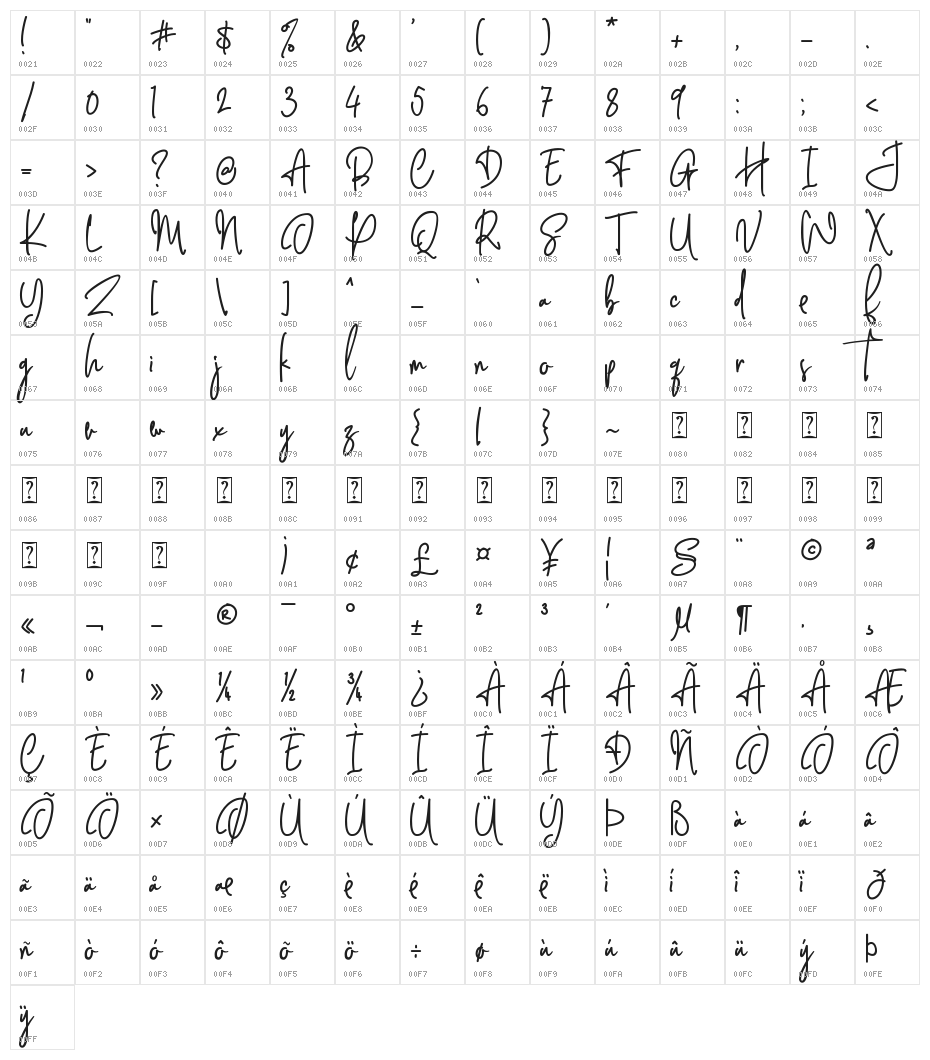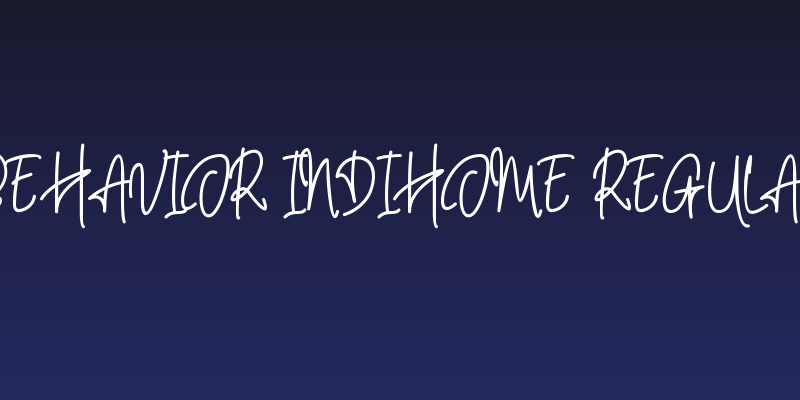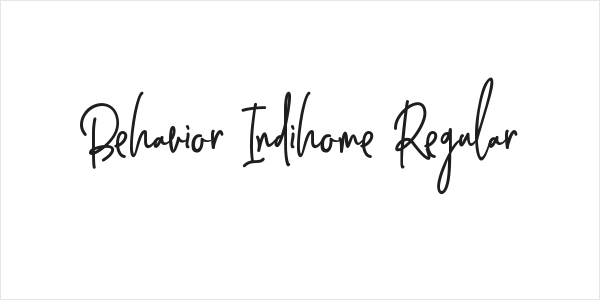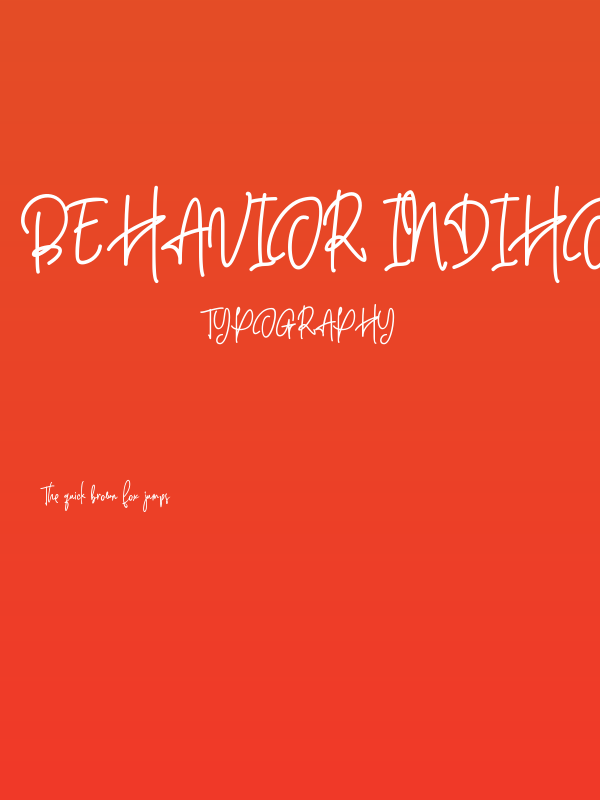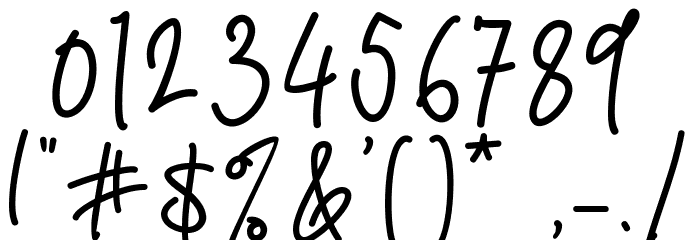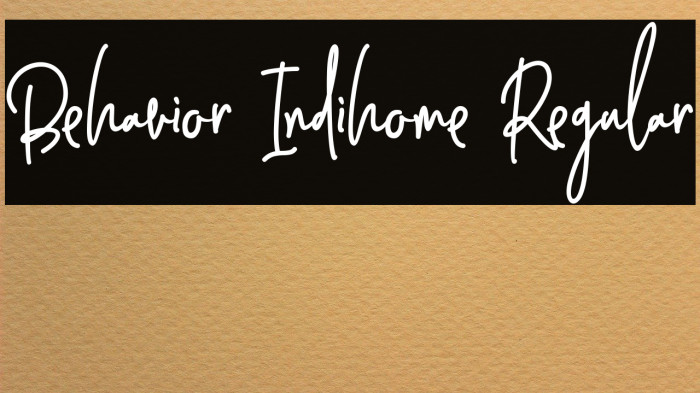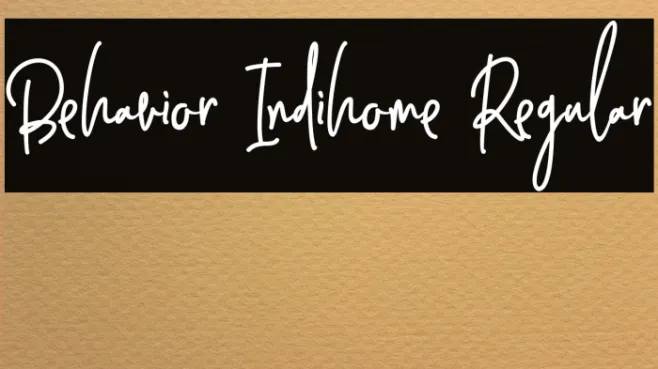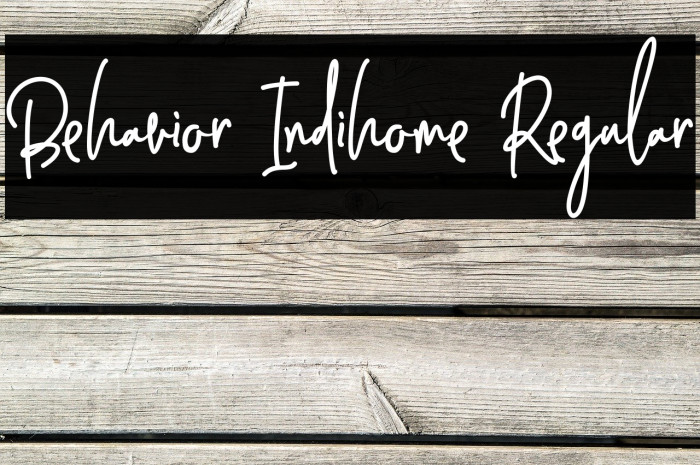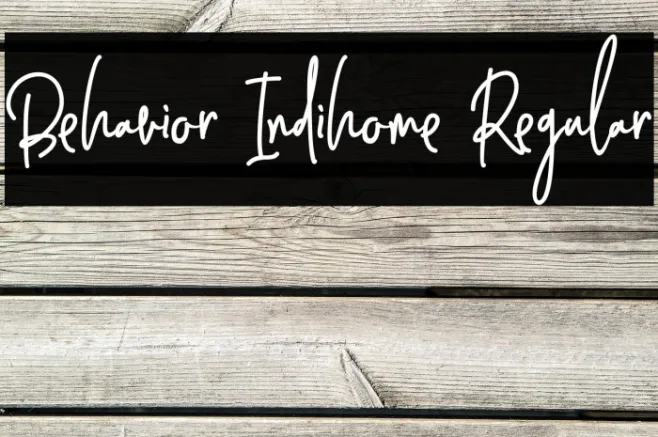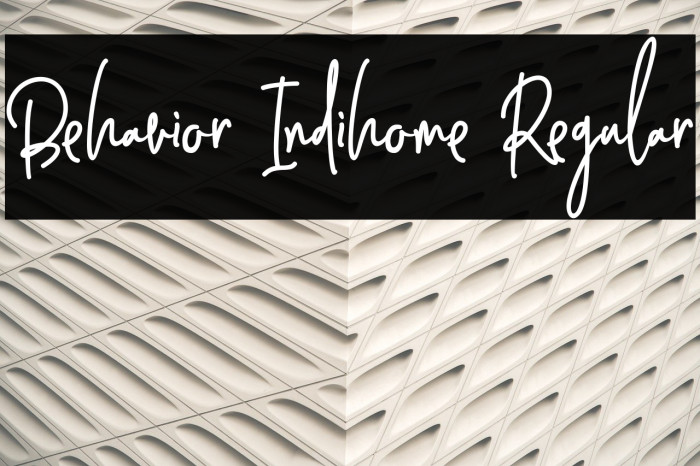
Behavior Indihome Regular Font
Behavior Indihome Regular Description
This font features a dynamic and expressive handwritten style, characterized by its fluid and organic strokes. The uppercase letters exhibit a playful yet elegant flair, with varying line thickness that adds a sense of movement and personality. The lowercase letters maintain a consistent flow, complementing the uppercase with their slightly more compact form. Numbers and special characters follow the same lively aesthetic, ensuring a cohesive look across all text. The overall appearance is both casual and sophisticated, making it suitable for projects that require a personal touch.